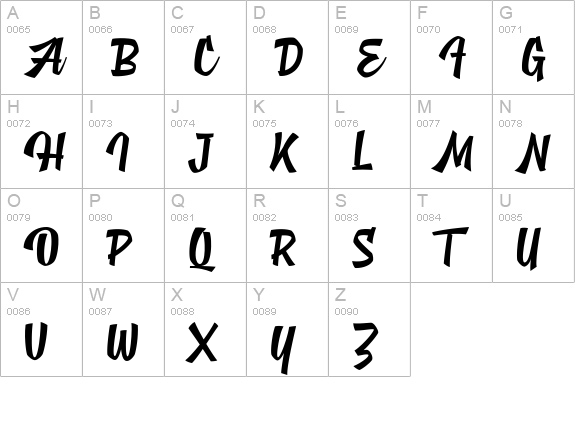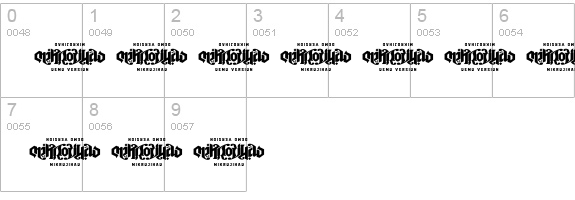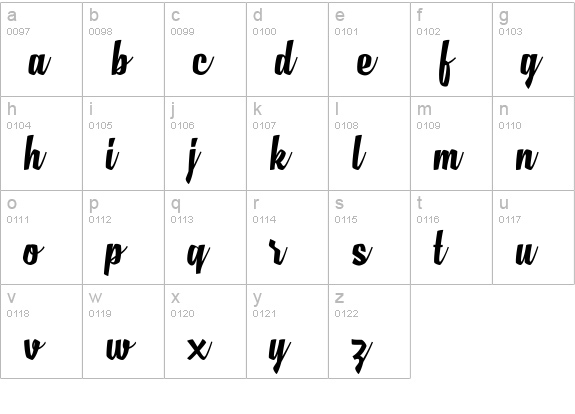
MJ AlGhifari is a free for personal use font in the Script > Brush category. It has been downloaded 65 times and is available for Windows, Mac and Linux.
MJ AlGhifari is a stunning and elegant font that exudes sophistication and style. Created with precision and attention to detail, this font is perfect for adding a touch of class to any project. Its sleek and modern design is sure to captivate and impress. What sets MJ AlGhifari apart from other fonts is not only its visual appeal but also its accessibility. This amazing font is available for free! Yes, you read that right. You can freely download the MJ AlGhifari font at FontsMarket.com, where it is readily available for anyone to enjoy. Whether you're a professional graphic designer, a student working on a project, or simply someone who appreciates beautiful typography, MJ AlGhifari is the perfect choice. Its versatility allows it to be used in a wide range of applications, including logos, branding, invitations, posters, and more. The clean and crisp lines of MJ AlGhifari make it highly legible, ensuring that your message will be conveyed with clarity and impact. Its sleek and modern aesthetic adds a touch of sophistication to any design, making it a go-to font for those seeking a refined and polished look. What makes the MJ AlGhifari font even more appealing is its ease of use. With a simple download from FontsMarket.com, you can start incorporating this beautiful font into your projects right away. It is compatible with various design software and can be seamlessly integrated into your workflow. So why wait? Get your hands on the MJ AlGhifari font today and elevate your designs to new heights. With its stunning visuals, accessibility, and versatility, this font is sure to become a beloved addition to your font collection. Download it for free at FontsMarket.com and unleash your creativity with MJ AlGhifari!